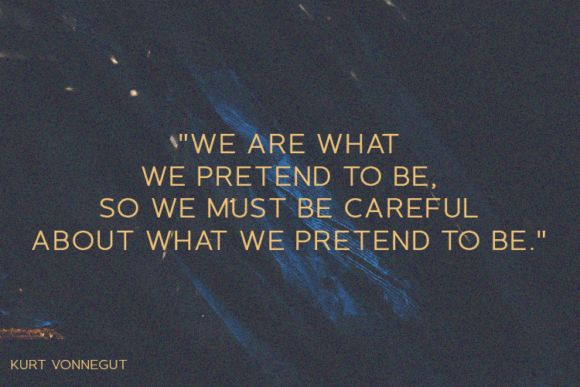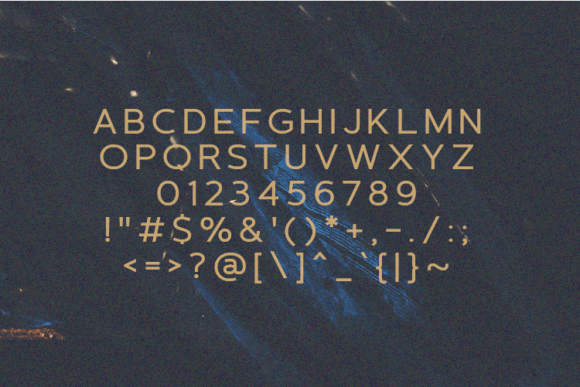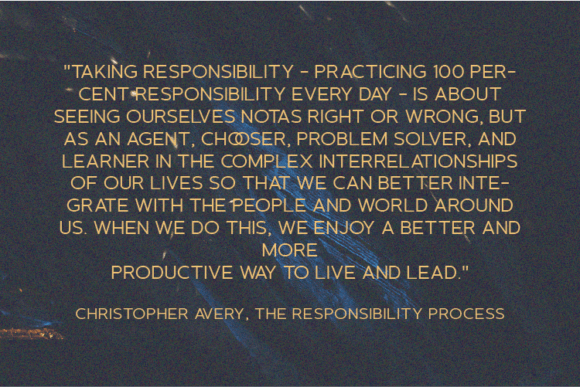
Introduction to Selfoodie Font
As creatives, we’ve all been there – stuck on a design project, staring at a blank screen, and desperate for the perfect font to bring our vision to life. The search for that elusive, high-quality font can be a daunting task, but what if I told you that your search is over? Enter the Selfoodie Font, a modern, classy sans serif typeface that’s about to become your new go-to design resource.
With its versatility and sleek design, the Selfoodie Font is perfect for a wide range of creative projects, from logos and weddings to invitations and advertisements. Whether you’re working on a free download or a high-end print magazine, this font is sure to elevate your design to the next level.
Key Features of Selfoodie Font
- High-quality, unique design elements for creative projects, allowing for a wide range of applications.
- Perfect for designers and artists working on creative projects, from branding and marketing materials to digital art and graphics.
- Selfoodie Font is a high-quality design resource, ideal for anyone looking to add a unique touch to their creative project.
Honest Review: Selfoodie Font
As a designer, I’m always on the lookout for high-quality design resources to enhance my creative projects. Recently, I stumbled upon the Selfoodie Font, and I’m excited to share my honest review with you.
Here are some things that work well:
- ✨ The font has a unique, playful design that adds a touch of whimsy to any project.
- ⚠️ The font may not be suitable for formal or professional projects, as it has a more casual, playful feel.
- ⚠️ Some users may find the font to be a bit too bold or overpowering, depending on the design context.
Overall, I think the Selfoodie Font is a great design resource for creative projects, especially those that require a touch of personality and playfulness. While it may not be suitable for every project, it’s definitely worth considering for designers looking to add some visual interest to their work.
Use the Selfoodie Font with a transparent background to create visually appealing designs. Experiment with different font sizes and styles to add variety to your design. The Selfoodie Font is a great design resource that can add a creative touch to your project.
The Selfoodie Font is commonly used in creative projects such as brochures, posters, and social media graphics. It is also used in presentations and documents that require a professional and creative touch.